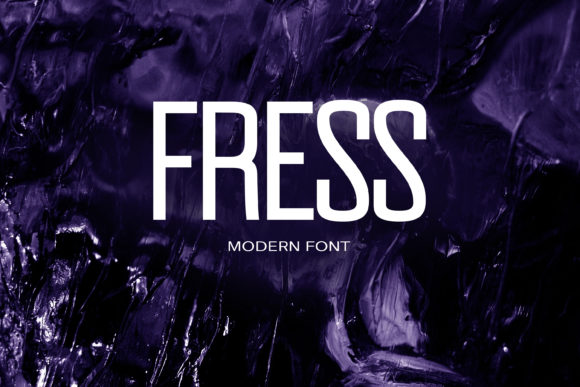
Introducing Fress Font, a Sans Serif Masterpiece for the Modern Age
Step into a world of typographic brilliance with Fress Font, a captivating sans serif creation that will elevate your designs to new heights. This font family exudes modernity and sophistication, promising to transform your projects with its clean lines, sharp angles, and dynamic curves.
Fress Font is the brainchild of DmDesignsStoreArt, a renowned font foundry known for its exceptional craftsmanship and unwavering commitment to quality. Each letterform has been meticulously designed to strike the perfect balance between readability, style, and visual impact. Whether you're crafting logos, headlines, web content, or any other design element, Fress Font will lend its undeniable charm and timeless appeal.
Embrace the allure of simplicity with Fress Font. Its uncluttered design allows your words to shine, making it an ideal choice for projects where clarity and impact are paramount. Its versatility knows no bounds, adapting effortlessly to a wide range of design styles and genres. From minimalist masterpieces to bold and vibrant creations, Fress Font has the power to amplify your message and leave a lasting impression.
Indulge in the limitless creative possibilities that Fress Font offers. Its versatility extends beyond traditional text-based applications, inviting you to explore its potential in branding, packaging design, social media graphics, and countless other creative endeavors. Let your imagination soar as you unlock the endless possibilities of this typographic marvel.
Join the ranks of discerning designers who have embraced the power of Fress Font. Experience the joy of creating designs that captivate, inspire, and leave an unforgettable mark. Let the clean lines and contemporary flair of this exceptional font family elevate your projects to the next level of excellence. Download Fress Font today and embark on a typographic journey that will redefine your creative boundaries.